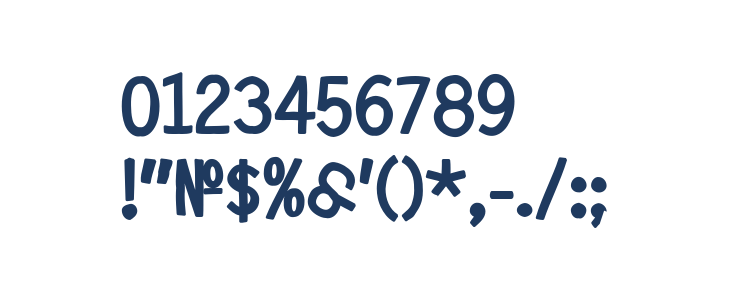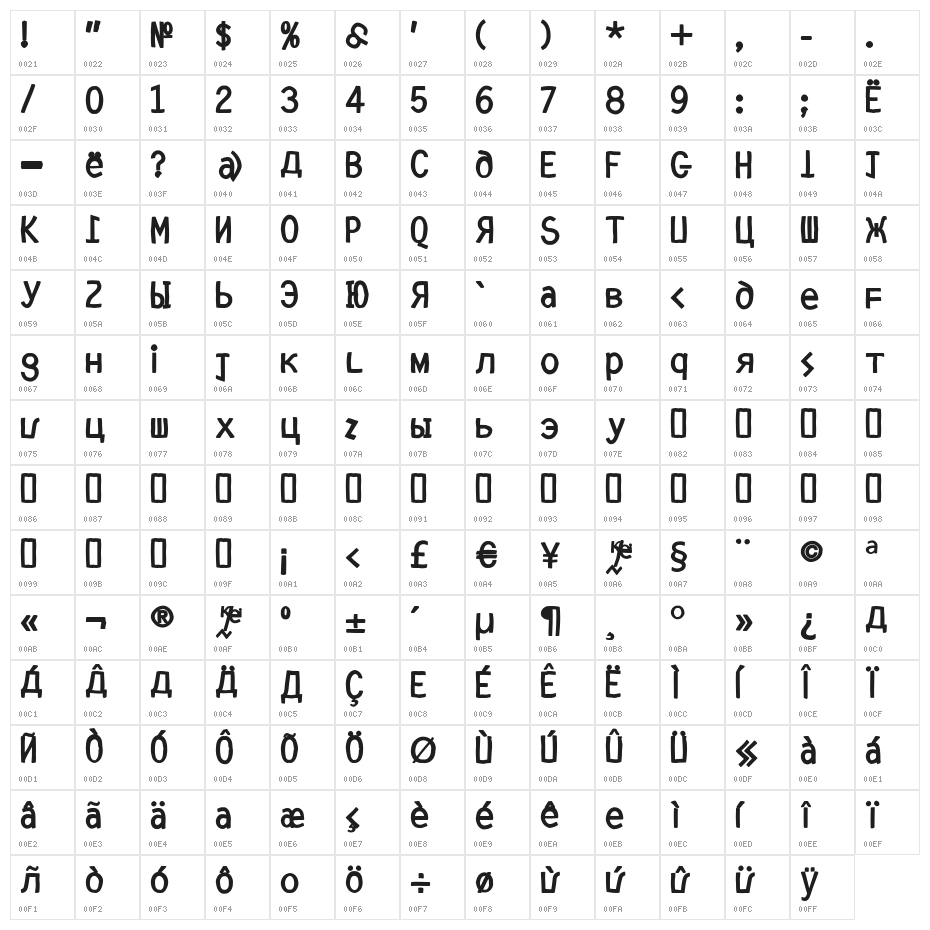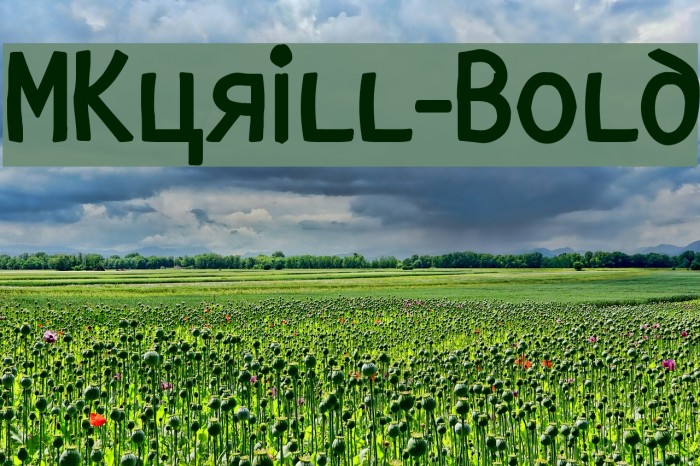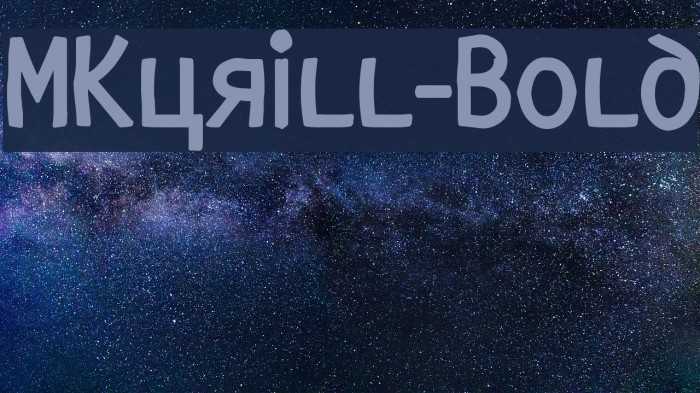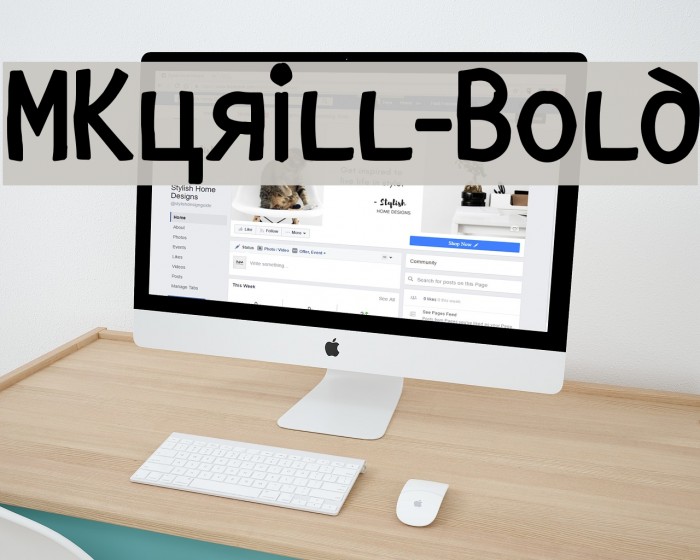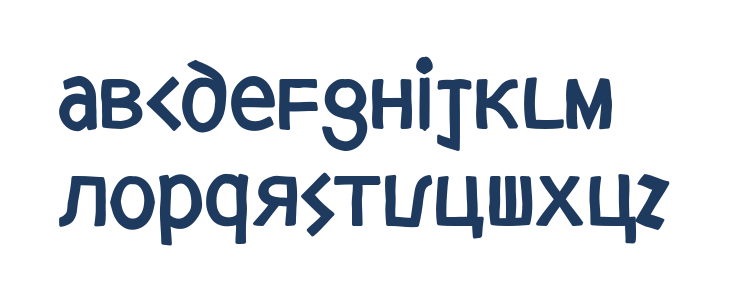
MKyrill-Bold Font
MKyrill-Bold Description
This font features a bold and playful design with a distinct hand-drawn appearance. The characters are slightly irregular, giving them a whimsical and informal feel. The uppercase letters are bold and prominent, while the lowercase letters maintain a consistent style with a slightly smaller size. The numbers are clear and easy to read, matching the overall boldness of the font. Special characters are creatively designed, adding to the font's unique personality. The strokes are thick and rounded, contributing to a friendly and approachable look.
| Overall Style | Playful, Hand-drawn |
| Proposed Projects | Ideal for children's books, playful branding, casual invitations, and creative posters. |